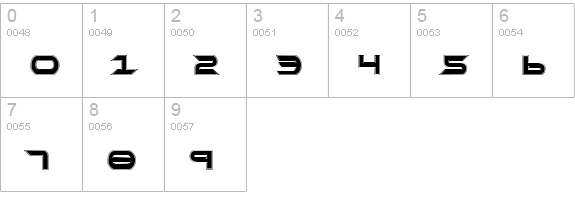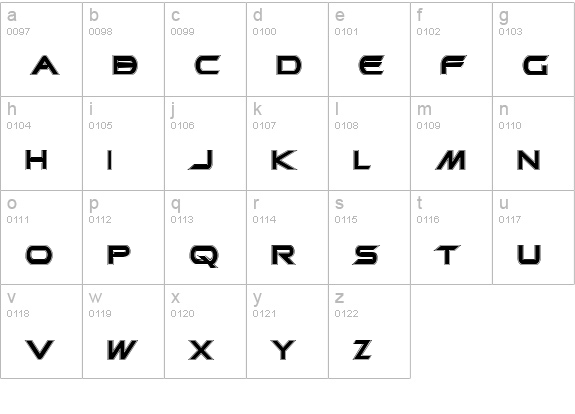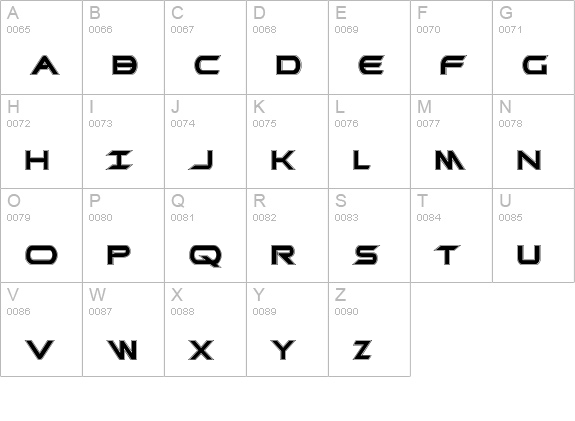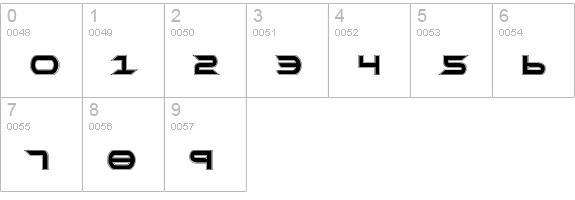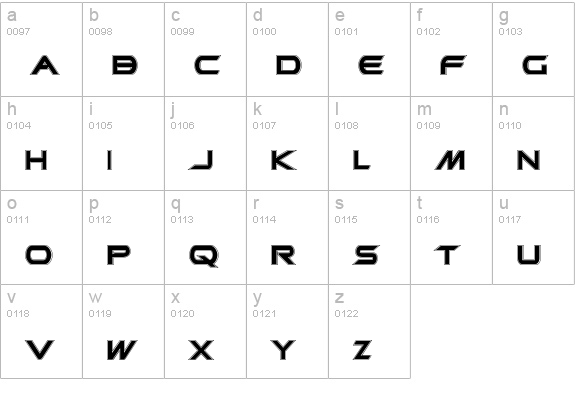
Promethean College Bold is a strong, high-contrast variant in the Promethean typeface family \xE2\x80\x94 well suited to headlines, attention-grabbing titles, and strong calls-to-action.
Promethean College Bold font is a modern and stylish typeface designed to make a bold statement in any design project. With its strong and confident appearance, this font is perfect for headlines, titles, and other attention-grabbing text. The sleek lines and sharp angles of Promethean College Bold exude a sense of sophistication and professionalism, making it an ideal choice for branding, logos, and marketing materials. What sets Promethean College Bold font apart is that it is available for free download at FontsMarket.com. This means that you can easily access this high-quality font without any cost, making it a valuable addition to your font library. Whether you are a designer, student, or hobbyist, having access to a versatile and striking font like Promethean College Bold can elevate your projects and help you stand out from the crowd. Download Promethean College Bold today and unleash your creativity with this dynamic and eye-catching typeface.